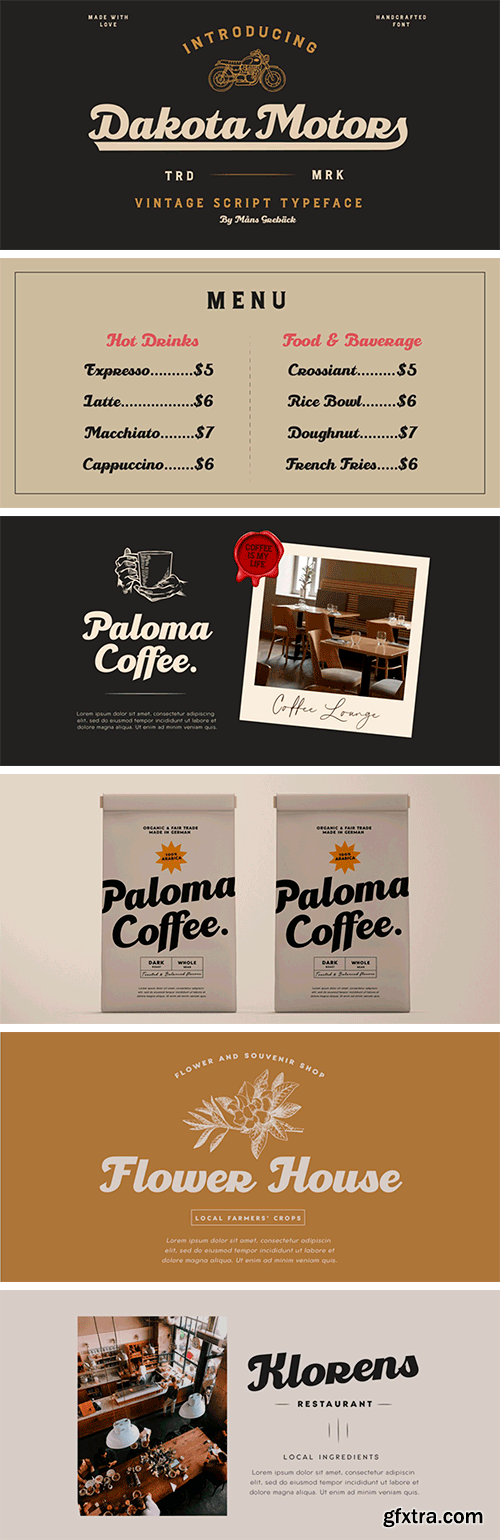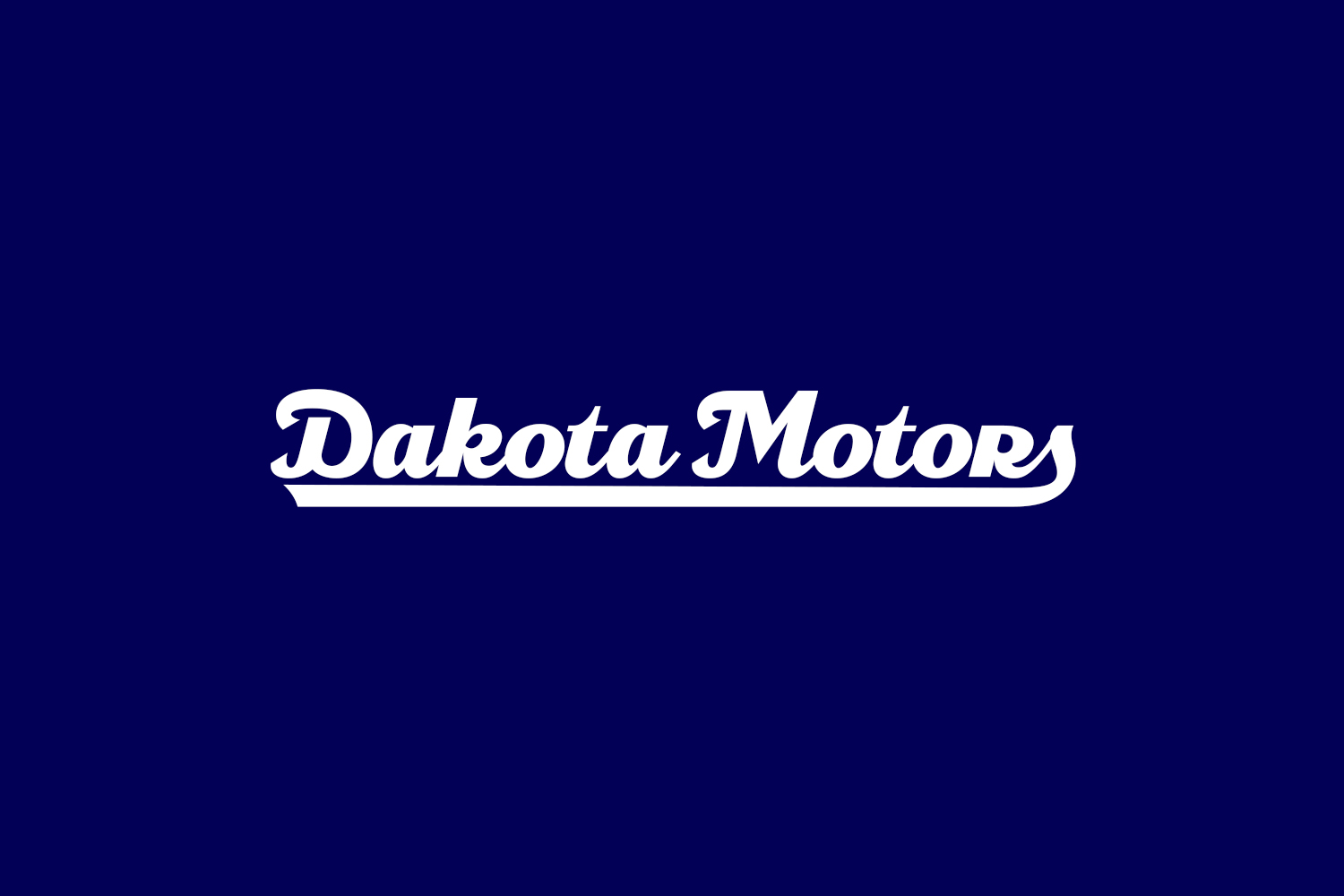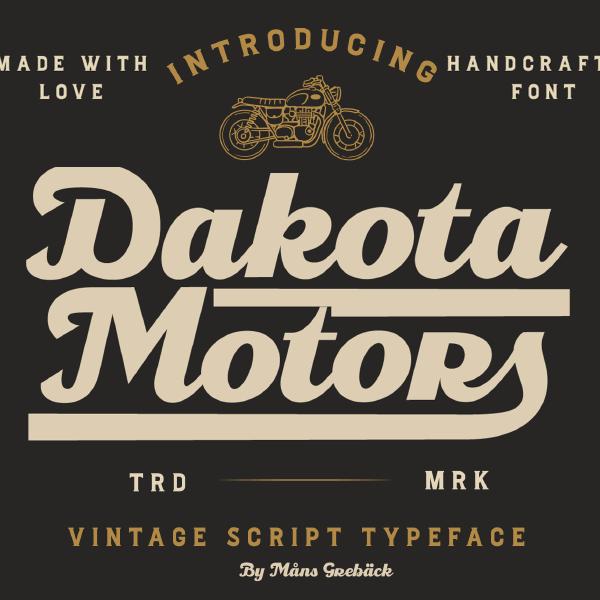
Dakota Motors Font
Dakota Motors Font - This retro font is expressive, and is constructed of sharp strokes and heavy. Web dakota motors is a bold script font. This retro font is expressive and constructed of sharp strokes and heavy letterforms. Dakota motors is a bold script font. This retro font is expressive, and is constructed of sharp strokes and heavy.
Web dakota motors is a bold script font. Dakota motors is a bold script font. This retro font is expressive, and is constructed of sharp strokes and heavy. This retro font is expressive, and is constructed of sharp strokes and heavy. This retro font is expressive and constructed of sharp strokes and heavy letterforms. Dakota motors is a bold script font.
This retro font is expressive, and is constructed of sharp strokes and heavy. Dakota motors is a bold script font. This retro font is expressive and constructed of sharp strokes and heavy letterforms. Web dakota motors is a bold script font. Dakota motors is a bold script font. This retro font is expressive, and is constructed of sharp strokes and heavy.
Dakota motors is a bold script font. This retro font is expressive, and is constructed of sharp strokes and heavy. Web dakota motors is a bold script font. This retro font is expressive, and is constructed of sharp strokes and heavy. This retro font is expressive and constructed of sharp strokes and heavy letterforms.
This retro font is expressive, and is constructed of sharp strokes and heavy. This retro font is expressive, and is constructed of sharp strokes and heavy. Dakota motors is a bold script font. Web dakota motors is a bold script font. Dakota motors is a bold script font.
Dakota motors is a bold script font. Web dakota motors is a bold script font. Dakota motors is a bold script font. This retro font is expressive and constructed of sharp strokes and heavy letterforms. This retro font is expressive, and is constructed of sharp strokes and heavy.
This retro font is expressive and constructed of sharp strokes and heavy letterforms. Dakota motors is a bold script font. Web dakota motors is a bold script font. Dakota motors is a bold script font. This retro font is expressive, and is constructed of sharp strokes and heavy.
This retro font is expressive, and is constructed of sharp strokes and heavy. This retro font is expressive, and is constructed of sharp strokes and heavy. Dakota motors is a bold script font. This retro font is expressive and constructed of sharp strokes and heavy letterforms.
Web dakota motors is a bold script font. This retro font is expressive, and is constructed of sharp strokes and heavy. Dakota motors is a bold script font. This retro font is expressive and constructed of sharp strokes and heavy letterforms.
This retro font is expressive and constructed of sharp strokes and heavy letterforms. This retro font is expressive, and is constructed of sharp strokes and heavy. This retro font is expressive, and is constructed of sharp strokes and heavy. Dakota motors is a bold script font. Web dakota motors is a bold script font.
Web dakota motors is a bold script font. This retro font is expressive, and is constructed of sharp strokes and heavy. Dakota motors is a bold script font. This retro font is expressive, and is constructed of sharp strokes and heavy.
Dakota motors is a bold script font. Web dakota motors is a bold script font. This retro font is expressive and constructed of sharp strokes and heavy letterforms. This retro font is expressive, and is constructed of sharp strokes and heavy.
Dakota motors is a bold script font. This retro font is expressive and constructed of sharp strokes and heavy letterforms. This retro font is expressive, and is constructed of sharp strokes and heavy. Web dakota motors is a bold script font. Dakota motors is a bold script font.
Dakota Motors Is A Bold Script Font.
Web dakota motors is a bold script font. Dakota motors is a bold script font. This retro font is expressive, and is constructed of sharp strokes and heavy. This retro font is expressive, and is constructed of sharp strokes and heavy.